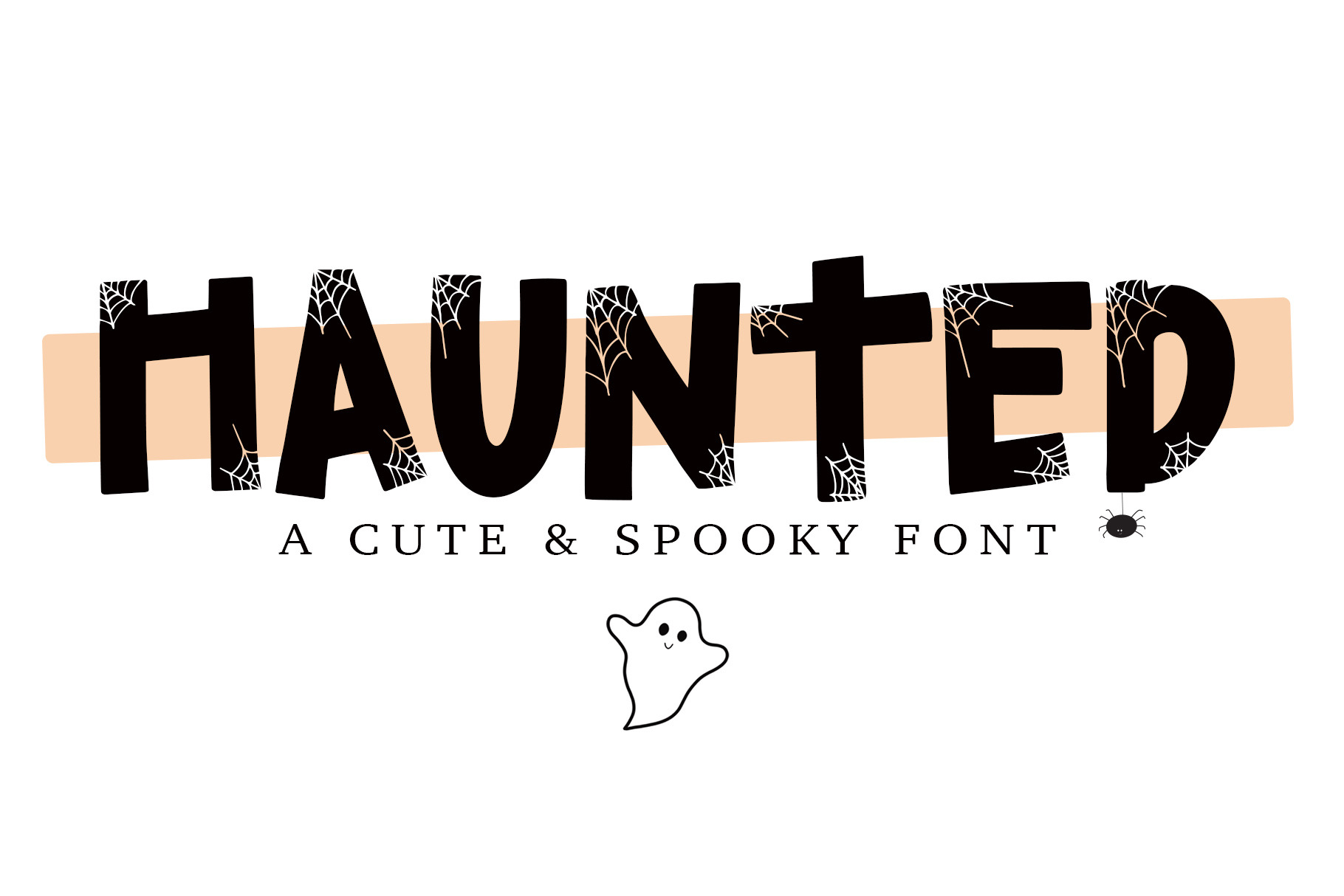
HAUNTED - A Halloween Font
A fun & spooky hand lettered font has arrived for all your Halloween designing needs! There's a cute ghost and spider included with this font. {{The ghost is the @ sign and the spider is the * asterisk.}}
Includes most accents for multilingual support. Punctuation includes: period, comma, exclamation, question, number sign, hyphen, quote, ampersand. Asterisk * and at @ signs are used to get a cute doodle!